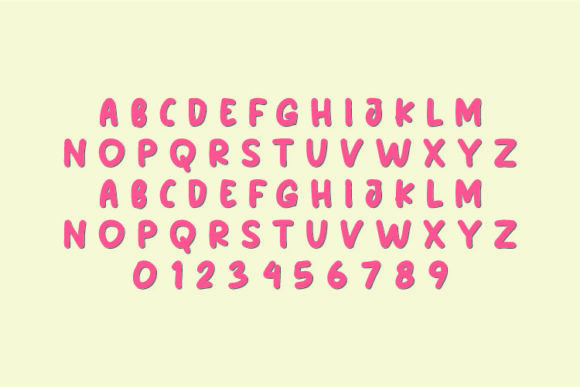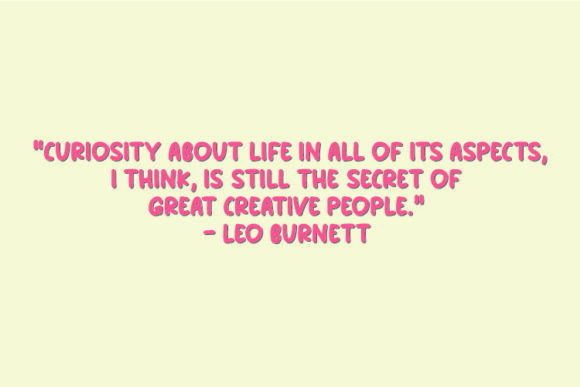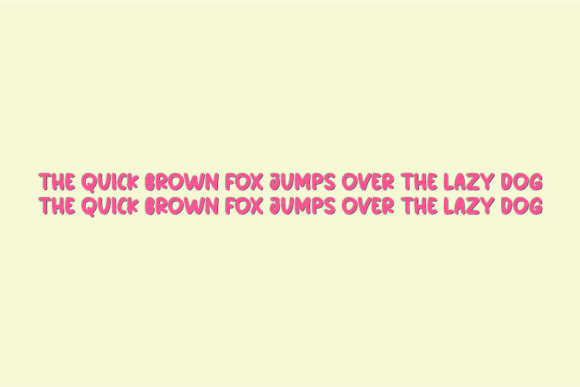
Dreaming Font
About Dreaming Font
Dreaming is a cute and natural handwritten font. Whether you use it for cartoon related designs, children games or just any creation that requires a lovely touch, this font will be an amazing choice.